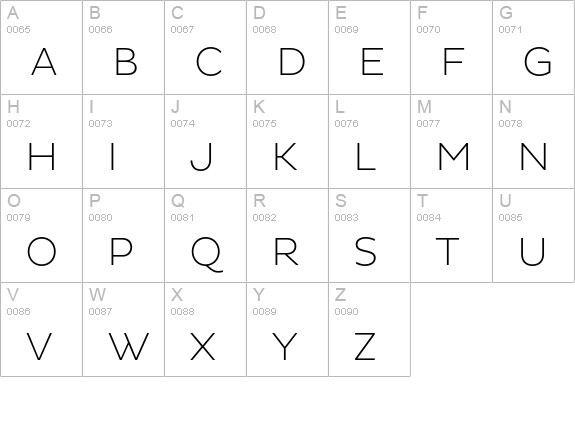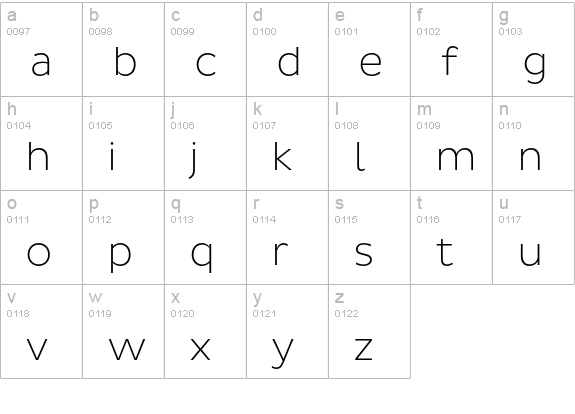
Pluto Sans ExtraLight is an airy, ultra-refined variant in the Pluto typeface family \xE2\x80\x94 well suited to minimalist headlines and refined display use.
Pluto Sans ExtraLight font is a modern and elegant typeface that exudes sophistication and style. With its delicate and refined design, this font is perfect for creating sleek and polished designs. The extra light weight of the font adds a touch of subtlety and airiness to any project, making it ideal for conveying a sense of minimalism and simplicity. What sets Pluto Sans ExtraLight font apart is its versatility and readability, making it suitable for a wide range of design applications, from branding and advertising to editorial design and web typography. Whether you are creating a logo, a poster, a website, or any other design project, this font will surely make a statement and leave a lasting impression. The best part about Pluto Sans ExtraLight font is that it is completely free to download at FontsMarket.com. This means you can easily access this high-quality font and use it in your projects without any cost. So why wait? Download Pluto Sans ExtraLight font today and elevate your designs with its timeless and sophisticated aesthetic.